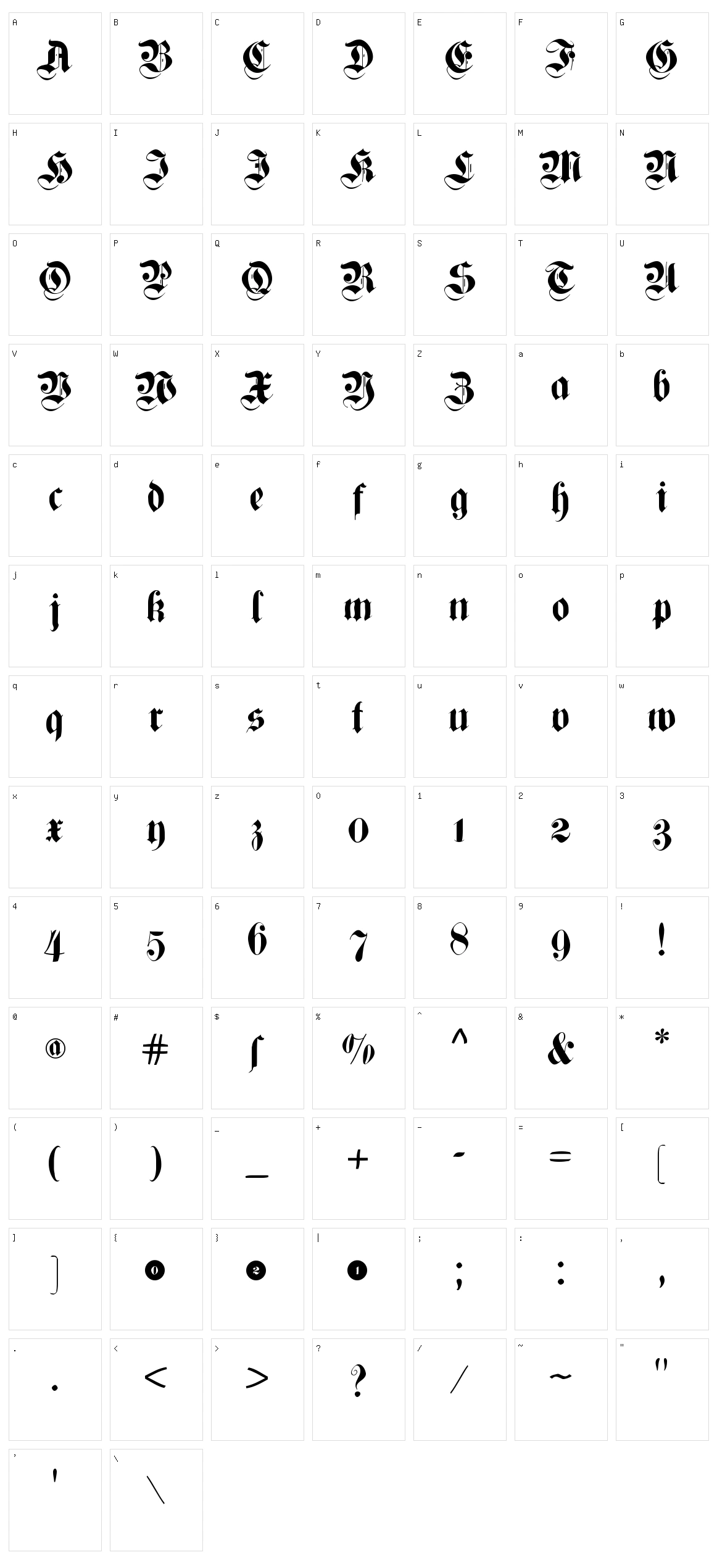
The free font Cuxhaven Times is carefully designed by Manfred Klein, showcasing a thoughtful balance of creativity and usability and belongs to the Gothic font family. When you download the ZIP file, it contains only 37.06 KB of font files, making it lightweight and quick to download. Please review the license details below to understand permitted usage and distribution rights. If license information is not available, we recommend using this font for personal projects only or contacting the author directly for commercial usage permissions.